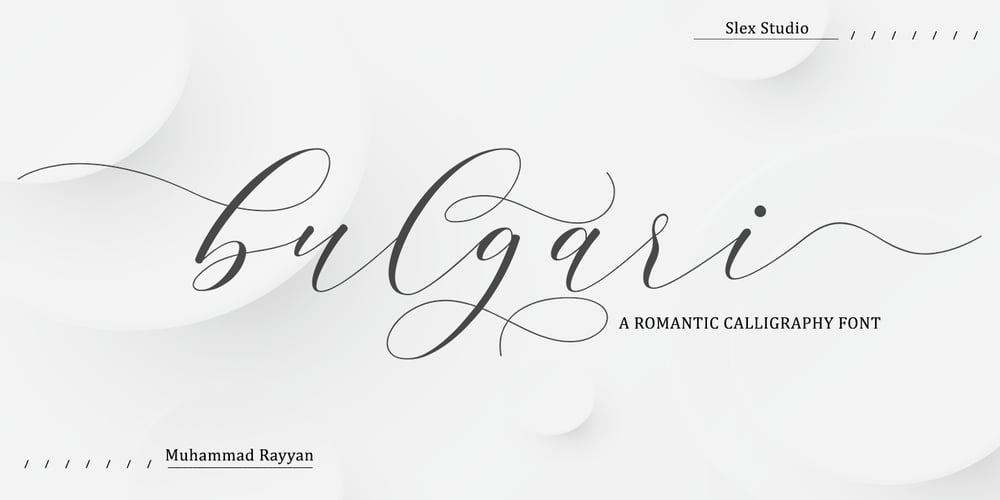
Bulgari Font Family was designed by Muhammad Rayyan and published by Slex Studio. Bulgari contains 1 styles and family package options. Bulgari is an organic handwritten font suitable for branding, wedding invitations, promotions, product packaging and other necessities. This font is modern, simple, but still authentic. You’ll get a full set of lowercase and uppercase letters, numbers and punctuation, multilingual symbols, lowercase start and end swashes, and ligatures.